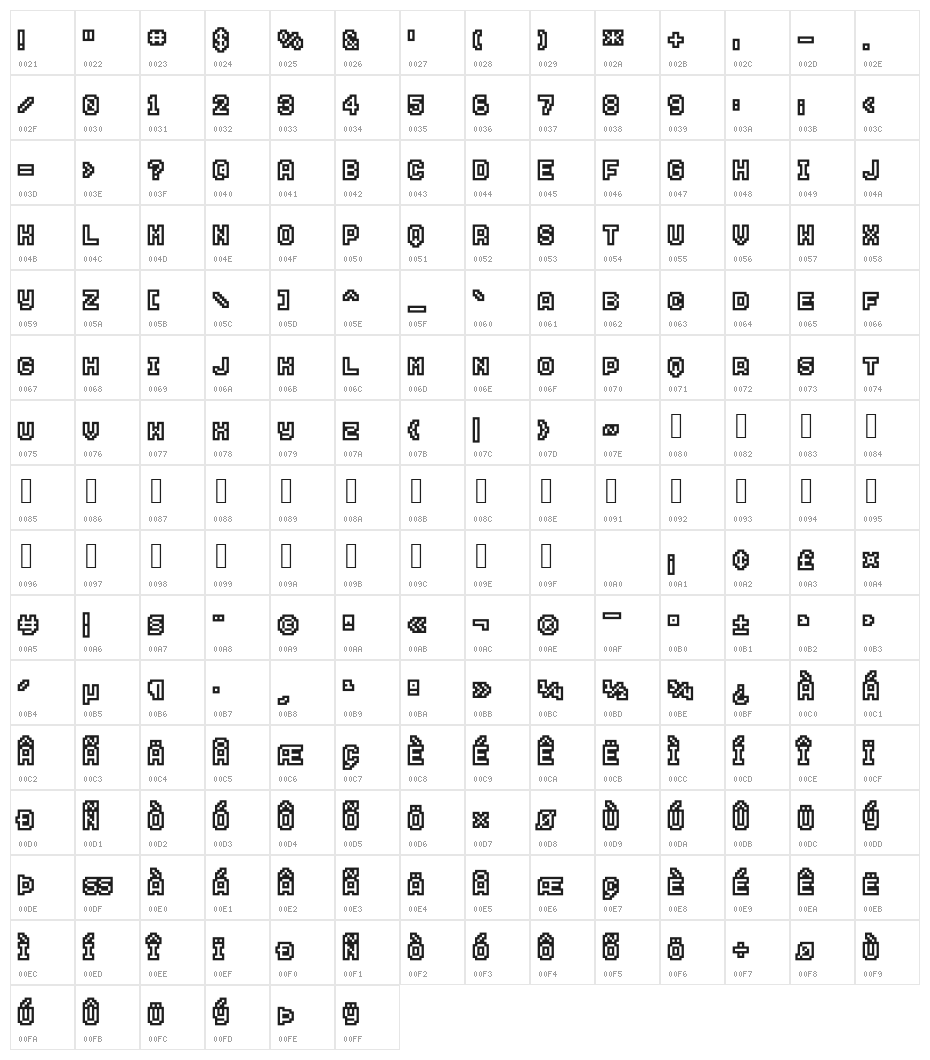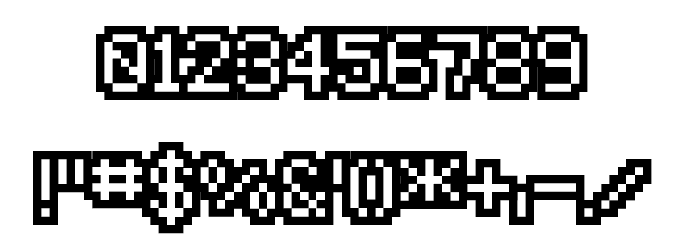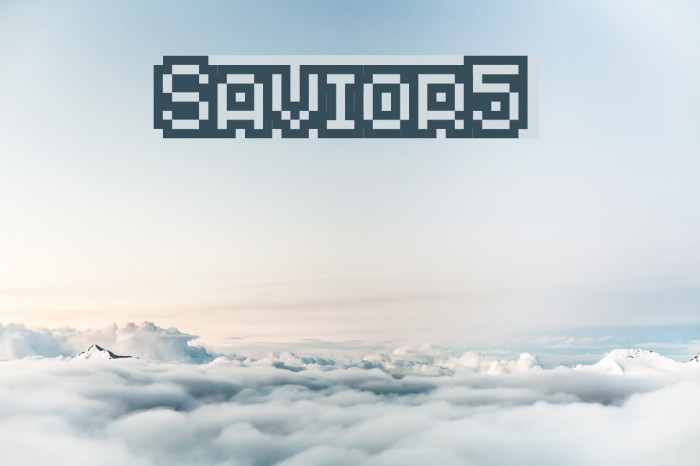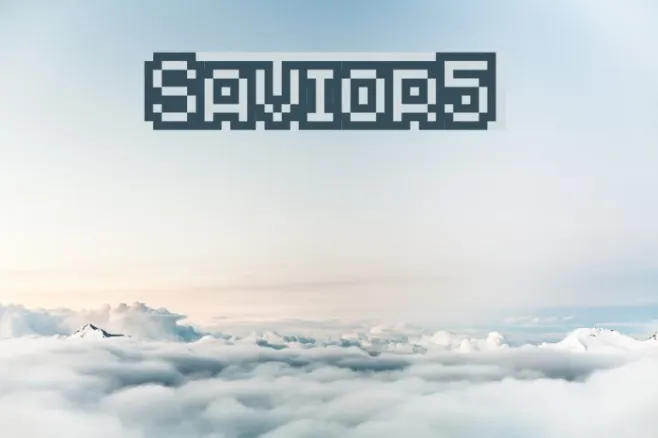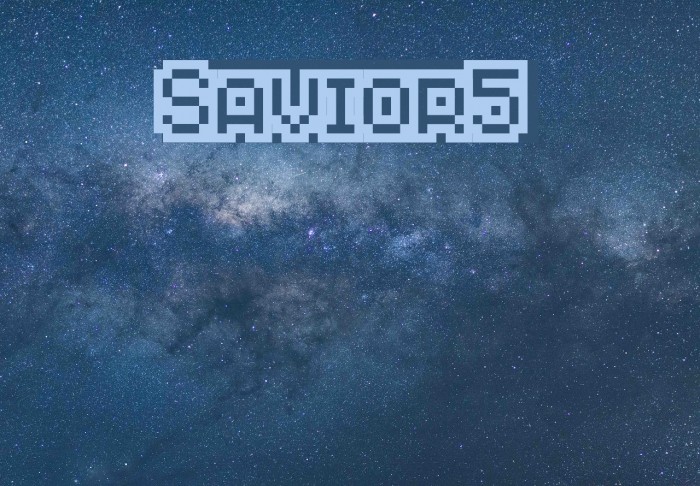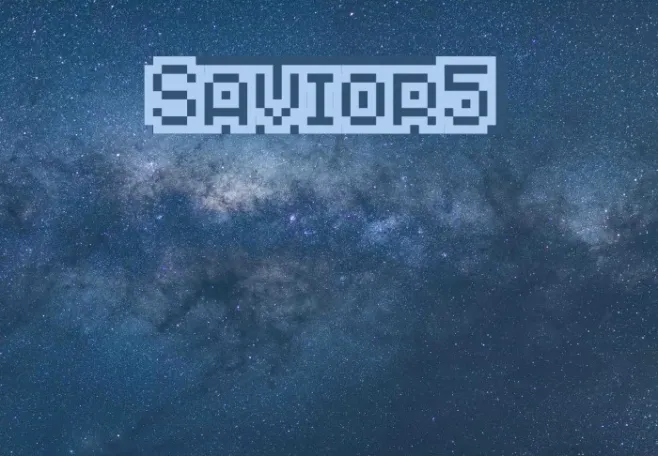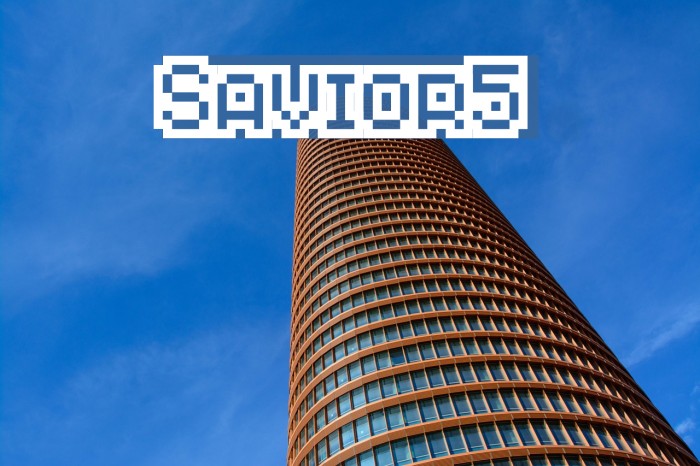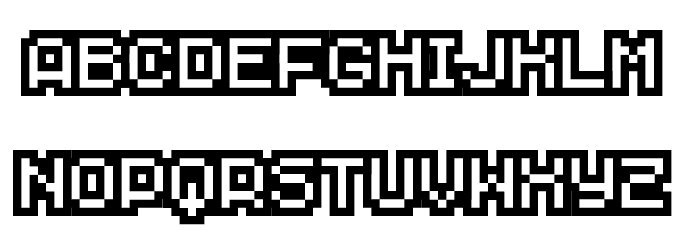
Savior5 Font
Savior5 Description
This font features a bold, pixelated style reminiscent of classic video game graphics. Each character is constructed with a blocky, grid-like appearance, giving it a retro and digital aesthetic. The uppercase and lowercase letters maintain a consistent height, while the numbers and special characters follow the same pixelated design. The thick outlines and uniform stroke width contribute to its distinctive, eye-catching look. This font is ideal for projects that aim to evoke nostalgia or a digital theme.
| Proposed Projects | Ideal for video game design, retro-themed posters, digital art, and tech-related branding. |